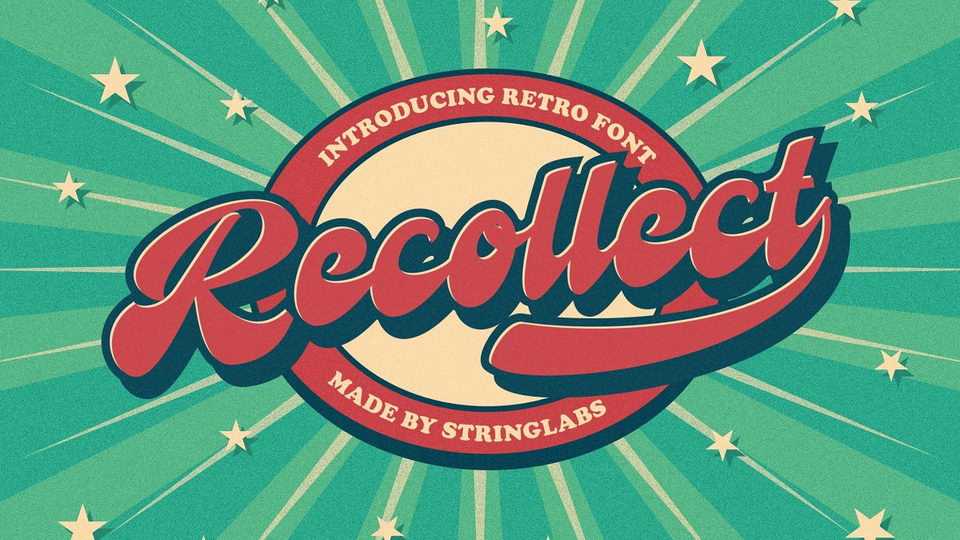
Recollet Script Font › Fontesk – Download Grátis
Download Recollet font, a retro bold script with vintage style. Recollet has unique design taste and combine with classic retro style of the 80s, trendy, vintage, and sporty.